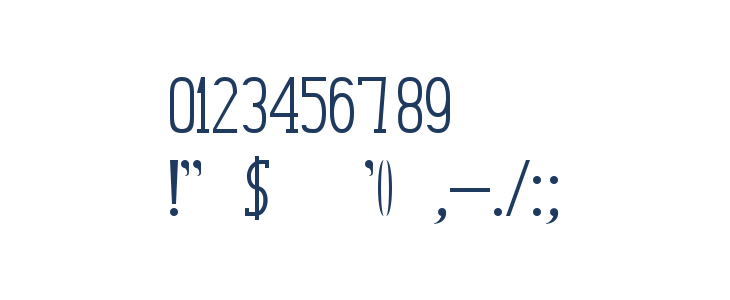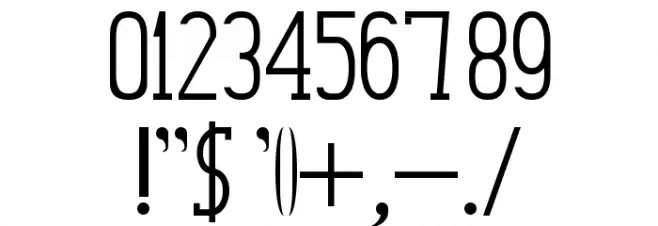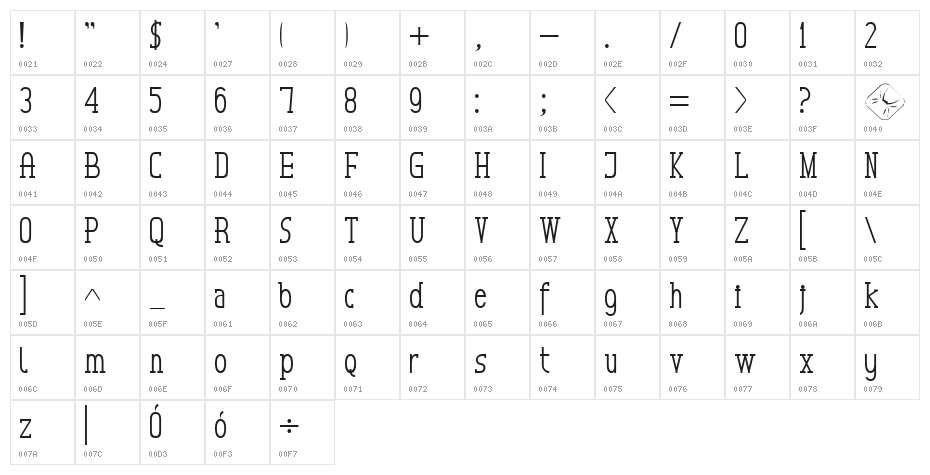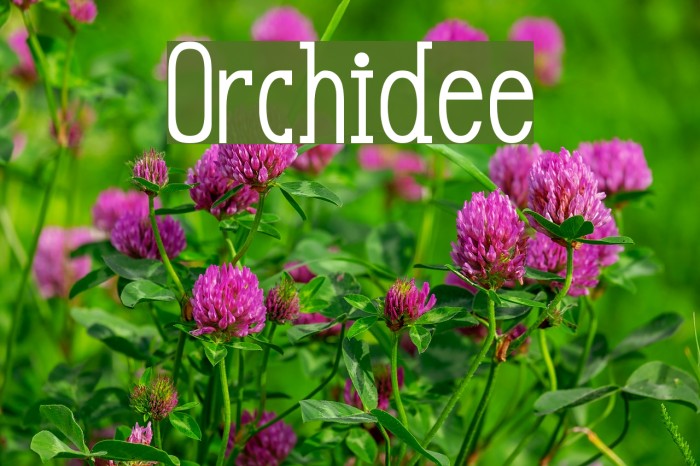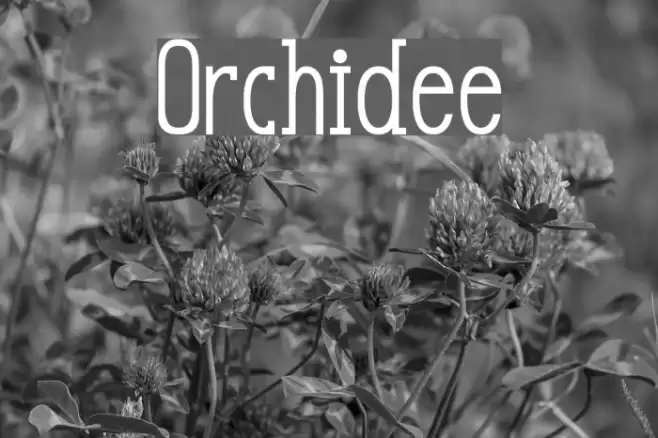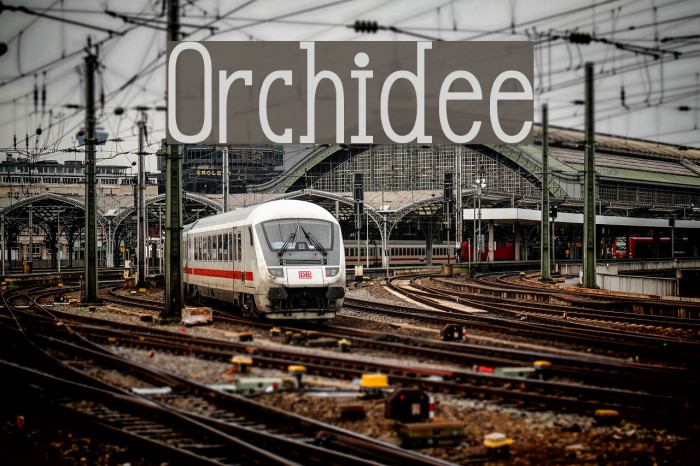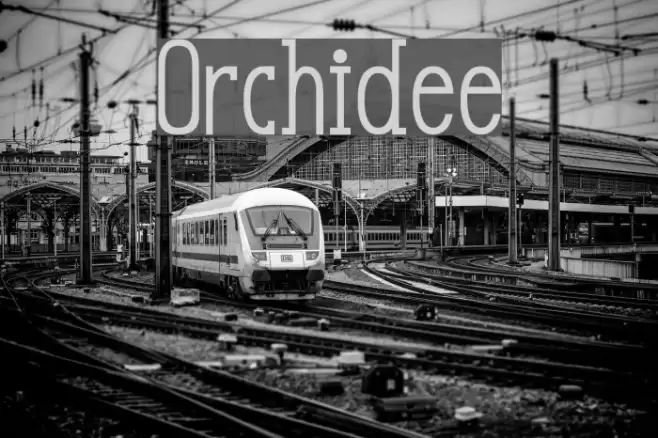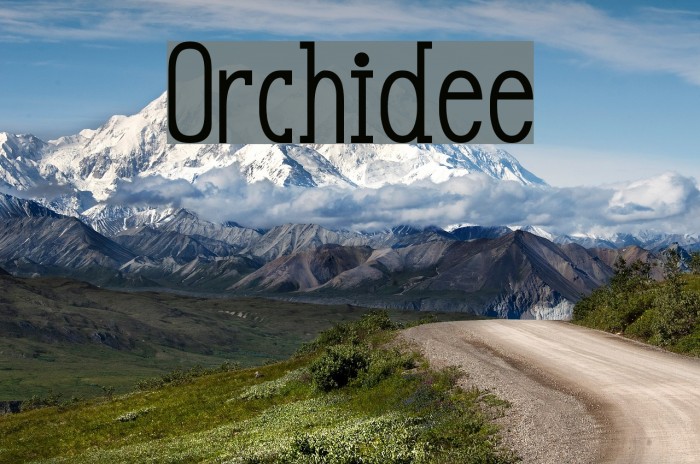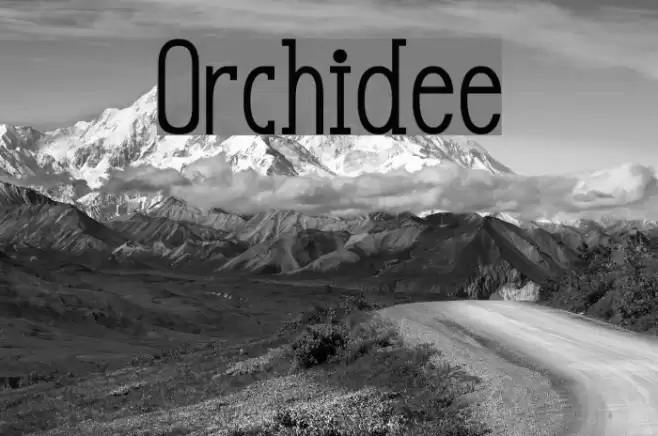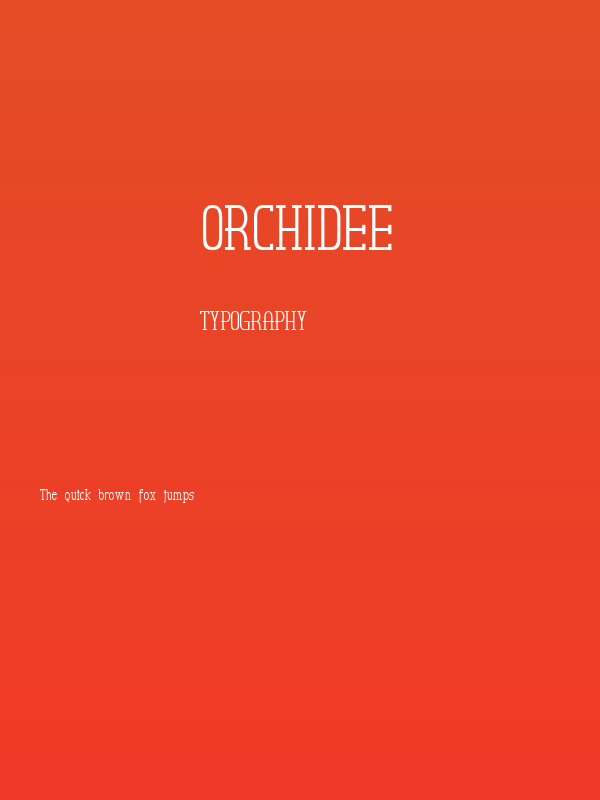
Orchidee Font
Orchidee Description
This font features a modern and clean design with a touch of elegance. The uppercase letters are tall and narrow, giving a sense of sophistication and formality. The lowercase letters maintain a consistent height, with unique characteristics such as the distinctive tail on the 'g' and the open loop of the 'e'. Numbers are clear and legible, making them suitable for various applications. The special characters are well-integrated, maintaining the overall style of the font. The strokes are consistent in weight, providing a balanced appearance.
| Proposed Projects | Ideal for branding, editorial design, and modern web design projects. |